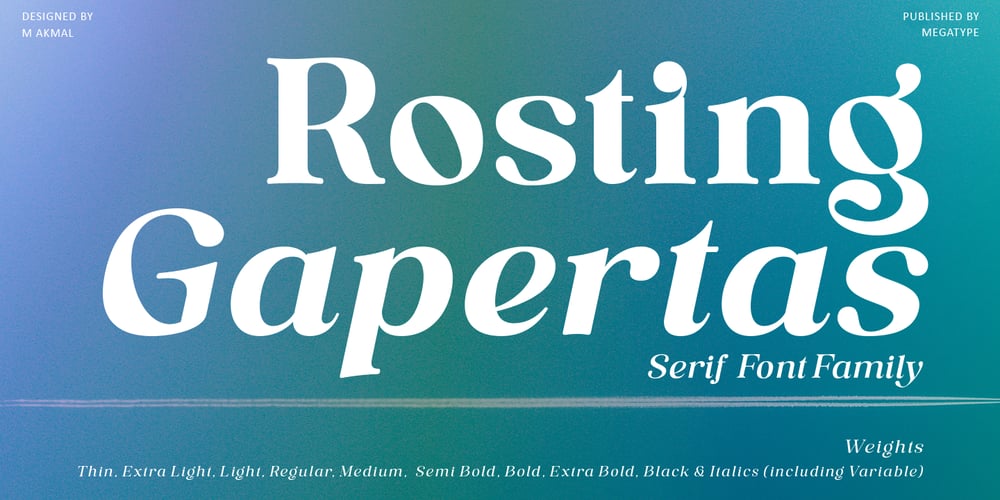
Rosting Gapertas Font Family was designed by M Akmal and published by Mega Type. Rosting Gapertas contains 20 styles and family package options. Rosting Gapertas is a soft and elegant yet sturdy serif family that mixes retro casual undertones with a modern feel. Designed to convey a sense of tenderness and natural expression with a sense of the present to function as a bold tool and a beautiful communicator. Morning Georgian comes in 9 different weights from Thin to Black with 2 styles (Standard & Italic).Rosting Gapertas is perfect for branding, editorial, packaging or logos and more.